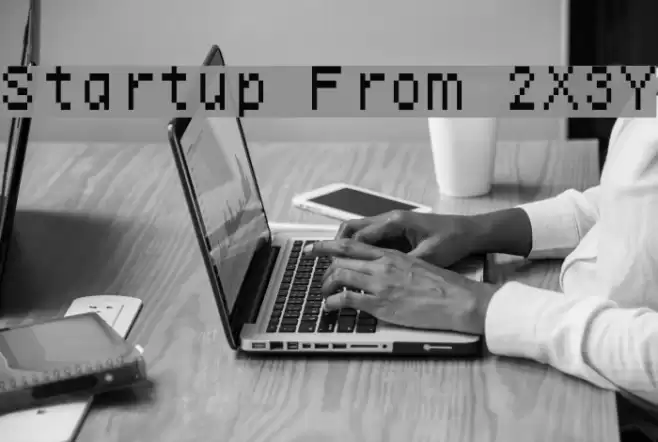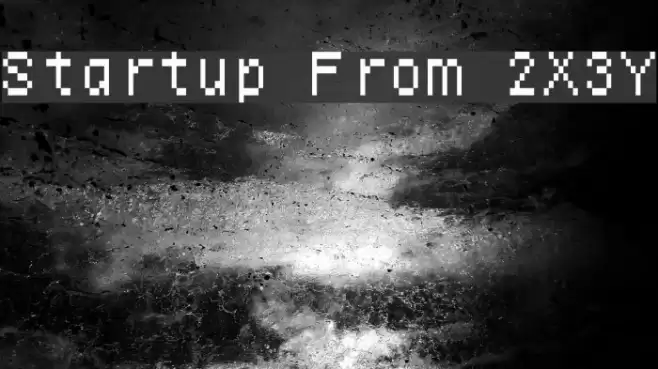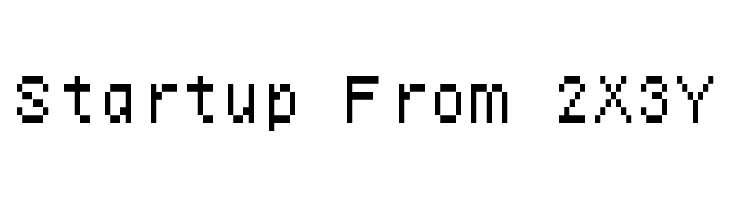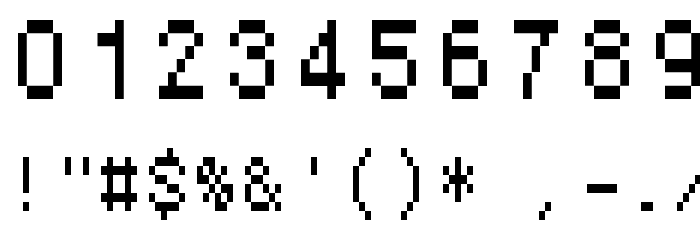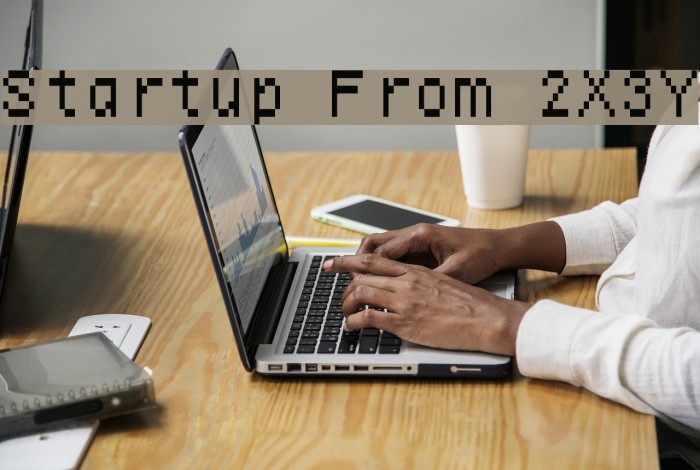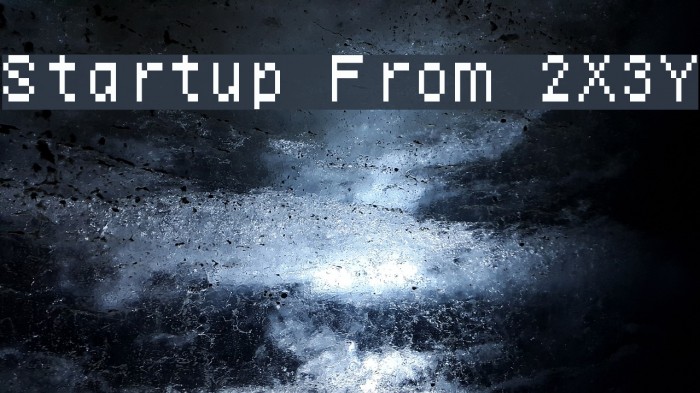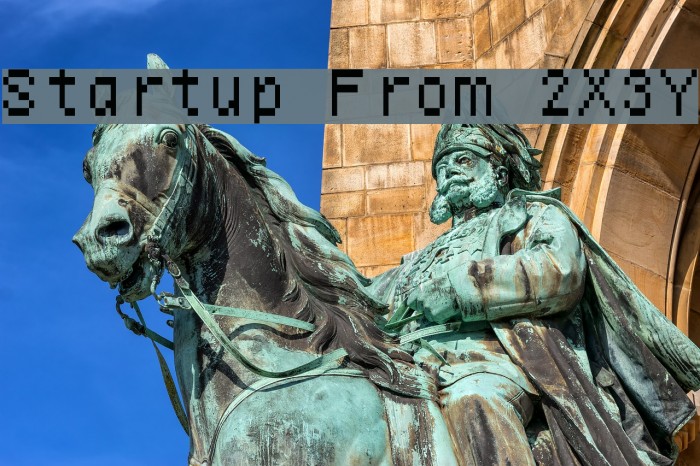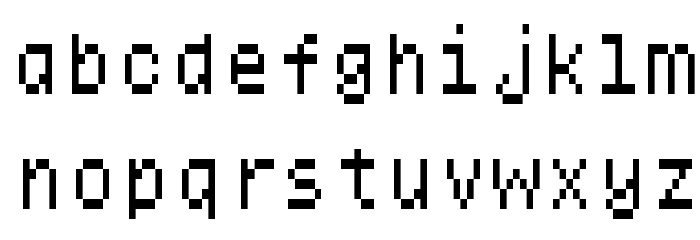
Startup From 2X3Y Font
Startup From 2X3Y Description
This font features a pixelated, grid-like structure reminiscent of early digital displays and retro video games. Each character is composed of small, square blocks, giving it a distinctly digital and geometric appearance. The uniformity in the height and width of the characters creates a monospaced effect, making it ideal for coding or any application where alignment is crucial. The uppercase and lowercase letters maintain a consistent style, with the lowercase being slightly smaller but equally blocky. Numbers and special characters follow the same pixelated design, ensuring a cohesive look across all text elements.
A pixelated, monospaced font with a retro digital style from Uncategorized fonts.
- Proposed Projects: Ideal for retro video game designs, digital art projects, coding environments, or any project seeking a nostalgic digital aesthetic.
- Overall Style: Retro, Digital
- Use Case: Coding, Digital displays, Retro designs